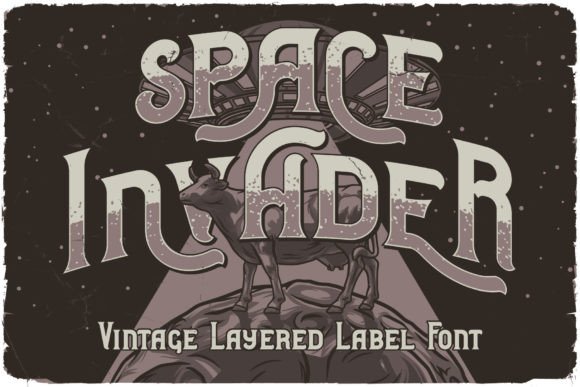
Embark on a cosmic adventure through the realm of typography with Space Invader Font – a display font as powerful and captivating as its namesake. Let your designs soar to new heights with this bold, vintage-styled font, meticulously crafted by the masterminds at Vozzy Vintage Fonts And Graphics. Let your words become stars and your designs become constellations with Space Invader Font. Blast off into a universe of creativity without limits.
Immerse yourself in the boundless realm of Space Invader's possibilities. Picture your designs adorned with this stellar font, commanding attention like celestial lighthouses. Its bold strokes and vintage charm will cast a spellbinding aura over your posters, flyers, and print creations. Become a cosmic wordsmith, enchanting your audience with messages that resonate with the power of the stars.
The Space Invader font family is a symphony of captivating characters, meticulously designed to carry your ideas through space and time. With its PUA encoding, accessing glyphs and ligatures becomes a seamless journey, allowing you to weave intricate tales and paint vivid pictures with every word. Your designs will become cosmic canvases, where imagination knows no bounds.
Unlock the secrets of celestial beauty with Space Invader, a font that transforms your words into works of art. Its unique design is a portal to a world where type takes flight, capturing hearts and imaginations in its wake. Prepare for a sensory experience like no other as Space Invader leads you on a journey through the cosmos, one letter at a time. Dare to embrace the infinite and watch your designs flourish under the celestial brilliance of Space Invader.